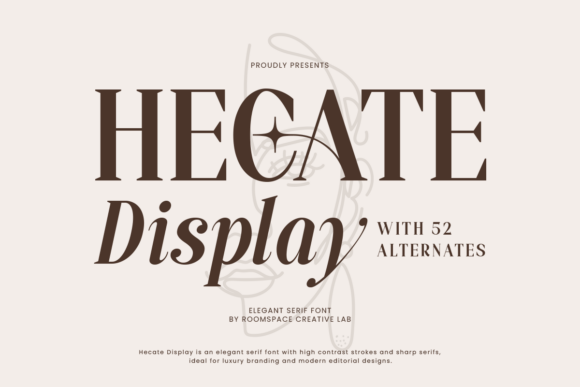
Hecate Display Font: Elevate Your Visual Projects with Sophistication and Balance
In the world of typography, a well-designed font can make all the difference in creating a lasting impression. For those seeking a refined serif typeface that exudes sophistication and balance, look no further than the Hecate Display font. This elegant font is designed to bring a touch of luxury and modernity to your visual projects, making it perfect for a wide range of applications.
The Design of Hecate Display Font
The Hecate Display font is a masterclass in typographic design. Its high-contrast strokes and confident serifs make it stand out from the crowd, while its clean lines, graceful curves, and sharp serifs give every composition a polished look. Each character was carefully crafted with precision to ensure that every letterform is a work of art in its own right.
One of the key features of Hecate Display is its exceptional legibility, even at large sizes. This makes it a strong choice for impactful layouts, such as magazine titles, product packaging, and advertising. The font’s versatility is also noteworthy, adapting effortlessly to both digital and print use.
Key Features of Hecate Display Font
- High-contrast strokes: Giving the font a sense of elegance and sophistication.
- Confident serifs: Adding a touch of strength and stability to the font.
- Clean lines and graceful curves: Creating a polished and refined look.
- 52 alternates: Providing flexible creative possibilities for crafting unique headlines, logos, or visual identities.
- Excellent legibility: Making it perfect for large-scale applications.
Use Cases for Hecate Display Font
The Hecate Display font is perfect for a wide range of applications, including:
- Luxury branding: Create a lasting impression with a sophisticated and elegant font.
- Elegant editorials: Add a touch of refinement to your magazine or newspaper layouts.
- Magazine titles: Make a bold statement with a clear and legible font.
- Product packaging: Elevate your product’s visual identity with a high-end font.
- Invitations: Create beautiful and sophisticated invitations for special occasions.
- Modern advertising: Stand out from the crowd with a confident and elegant font.
The Benefits of Using Hecate Display Font
So why choose the Hecate Display font for your next project? Here are just a few benefits:
- Sophistication and balance: Bring a touch of elegance and refinement to your visual projects.
- Flexibility: With 52 alternates, you can create unique headlines, logos, or visual identities.
- Legibility: Ensure that your message is clear and easy to read, even at large sizes.
- Versatility: Adapt the font effortlessly to both digital and print use.
In conclusion, the Hecate Display font is a refined serif typeface that is perfect for those seeking a sophisticated and balanced aesthetic. With its high-contrast strokes, confident serifs, and clean lines, it’s ideal for luxury branding, elegant editorials, and a wide range of other applications. Try Hecate Display today and elevate your next project with a professional, editorial touch.
- What is the Hecate Display font?
- The Hecate Display font is a refined serif typeface designed to bring sophistication and balance to your visual projects.
- What are the key features of Hecate Display?
- The font features high-contrast strokes, confident serifs, clean lines, and 52 alternates.
- What is Hecate Display suitable for?
- The font is perfect for luxury branding, elegant editorials, magazine titles, product packaging, invitations, and modern advertising.